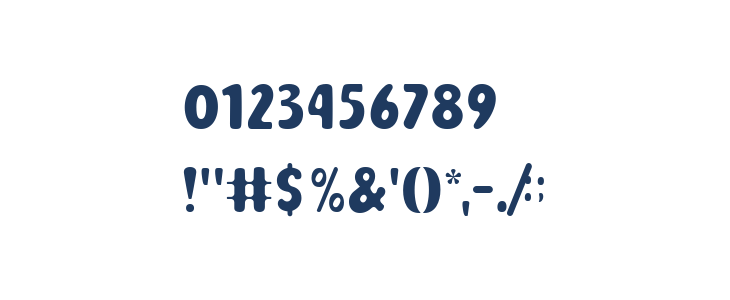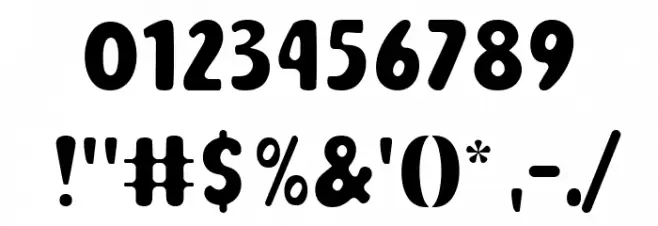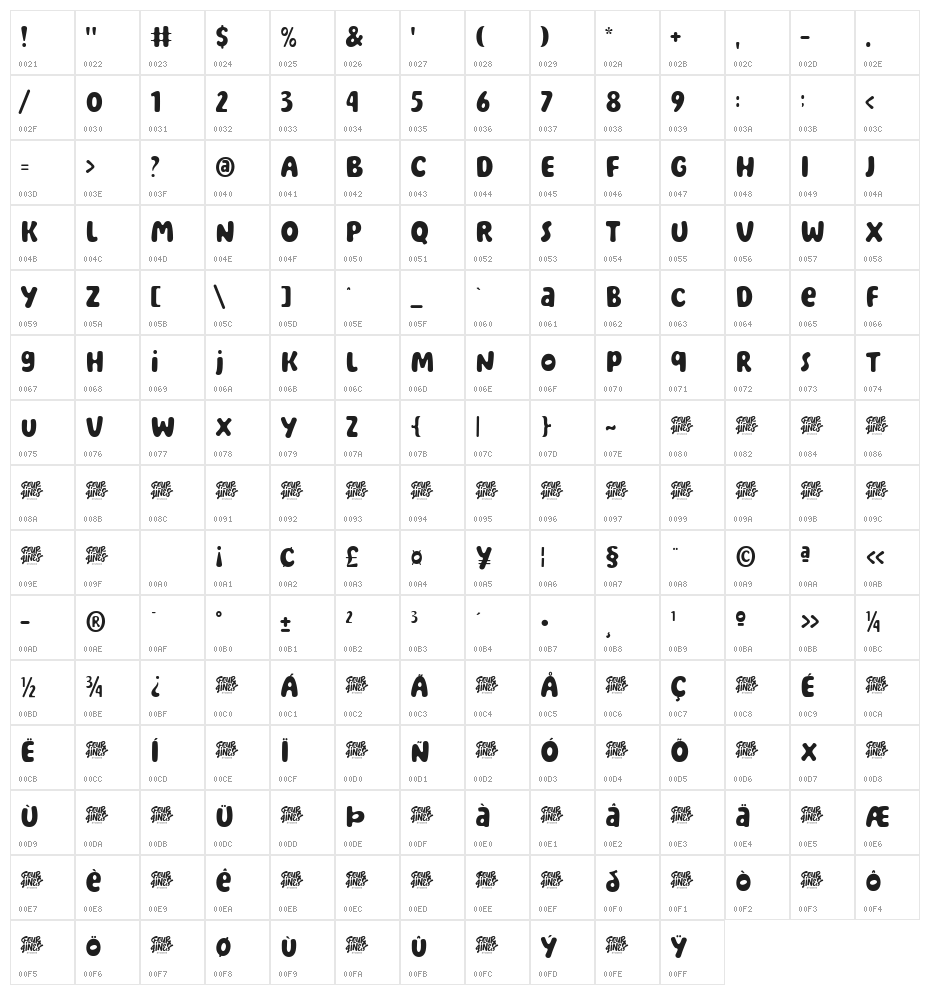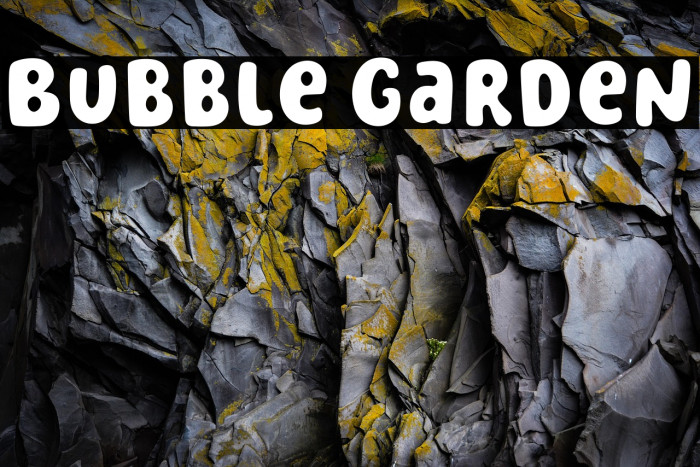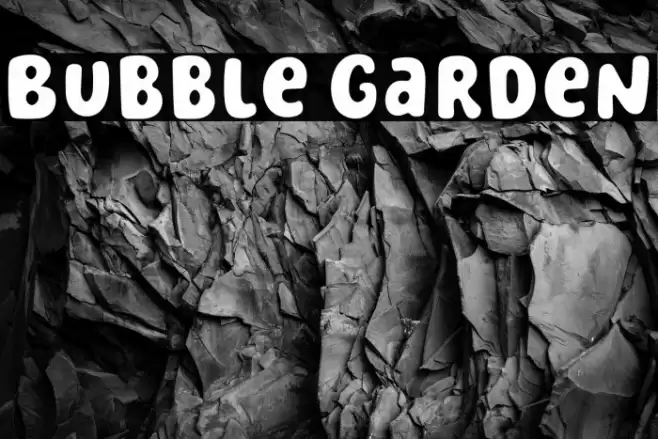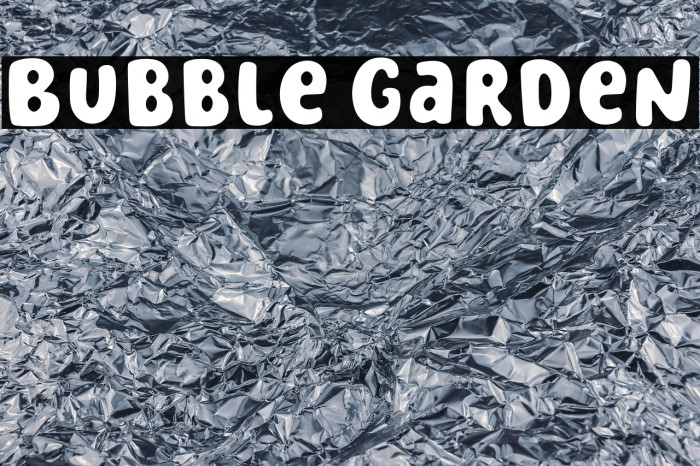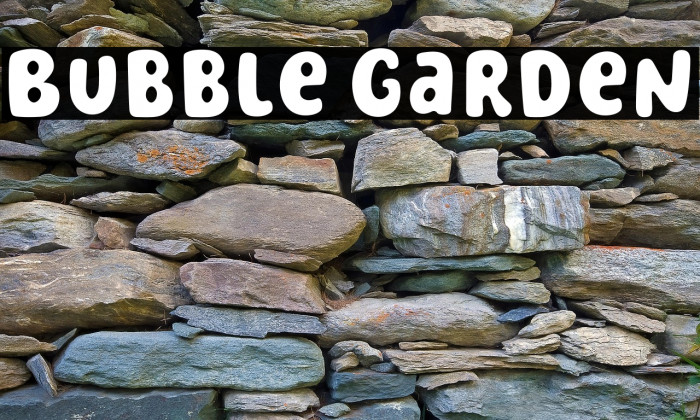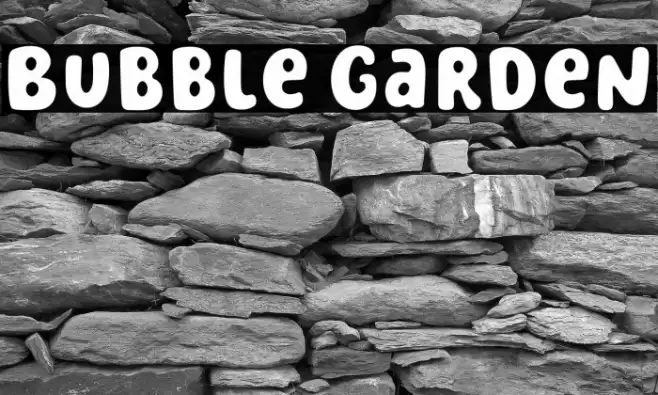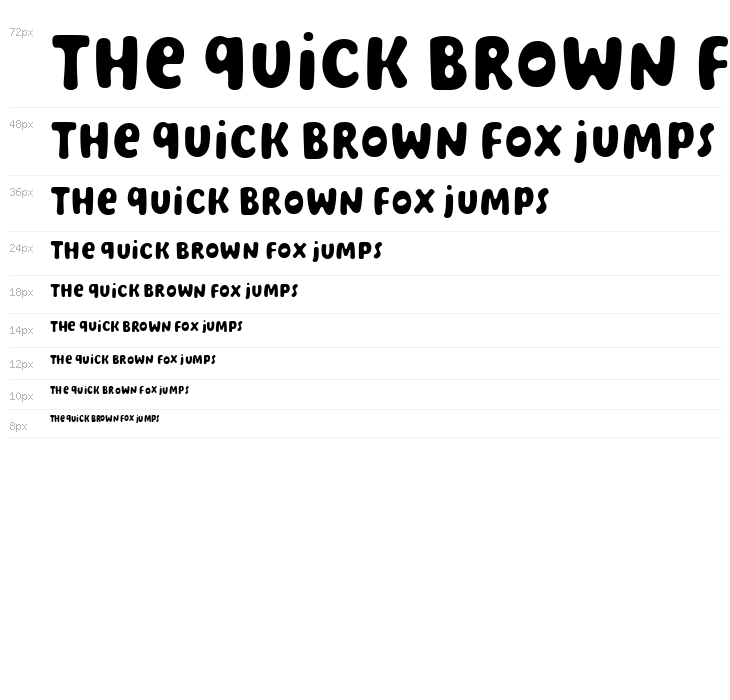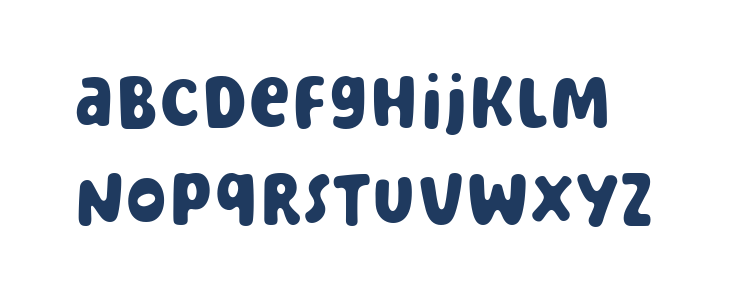
Bubble Garden Font
Bubble Garden Description
This playful and whimsical font features rounded, bubbly characters that convey a sense of fun and lightheartedness. The letters are bold and have a uniform thickness, giving them a cartoonish appearance. The rounded edges and consistent stroke width create a friendly and approachable look, making it ideal for projects aimed at children or for conveying a sense of joy and creativity. The numbers and special characters maintain the same playful style, ensuring consistency across all text elements. This font is perfect for designs that require a touch of humor and charm.